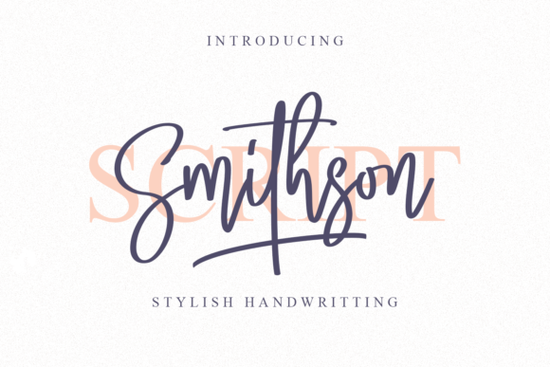
If you're looking for a handwritten font that blends elegance with modern flair, the Smithson Font is worth your attention. Designed with subtle calligraphic details and a fresh, contemporary rhythm, it’s especially well-suited for invitations, branding, packaging, and personal craft projects. What makes Smithson stand out isn’t just its visual charm it’s also PUA encoded, meaning all those decorative swashes and alternate glyphs are easy to access without digging through complex software menus.
Why choose a handwritten script like Smithson?
Handwritten fonts add warmth and personality to any design. Unlike rigid sans-serifs or formal serifs, scripts like Smithson mimic natural pen strokes, making them ideal for projects that need a human touch think wedding stationery, boutique product labels, or custom apparel. Smithson strikes a balance: it’s refined enough for luxury branding but relaxed enough for everyday creative use.
For small business owners and print-on-demand sellers, this kind of versatility matters. You can use it for a delicate quote on a coffee mug or as the focal point of a premium skincare label and it holds up beautifully in both contexts. Plus, because it includes extended glyphs and swashes (thanks to PUA encoding), you don’t need advanced typography skills to make your text look professionally styled.
How does Smithson compare to other script fonts?
Not all script fonts offer the same level of detail or usability. Take Monday Font, for example it leans more casual and bouncy, great for playful designs but less suited for formal occasions. On the other hand, Soulmate Font has romantic flourishes that work beautifully for weddings but might feel too ornate for minimalist brands.
Stylish Font offers bold, dramatic strokes perfect for headlines, while Pink Vibes Duo gives you two complementary styles in one package ideal if you want layered or contrasting text effects. Smithson sits comfortably in the middle: elegant without being fussy, legible without being plain.
Who is Smithson best for?
This font shines in the hands of:
- Wedding designers creating save-the-dates, menus, or place cards
- Etsy sellers crafting printable wall art or digital planners
- Small businesses developing logo marks or packaging for artisanal goods
- Crafters using Cricut or Silhouette machines for vinyl lettering
- Content creators designing social media quotes or YouTube thumbnails with a personal vibe
Because Smithson includes OpenType features accessible via PUA encoding, even users working in basic design tools like Canva (with font upload enabled) or Affinity Designer can easily swap in swash endings or stylistic alternates to elevate their layouts.
Tips for using Smithson effectively
To get the most out of this font, keep a few things in mind:
- Avoid overuse. Like any script font, Smithson works best when used sparingly headlines, short phrases, or accent text rather than body copy.
- Pair it wisely. Combine it with a clean, neutral sans-serif (like Montserrat or Lato) to create contrast and improve readability.
- Test at different sizes. Some delicate swashes may blur at very small point sizes, so preview your design at actual output scale.
- Use ligatures and alternates intentionally. Not every word needs every flourish sometimes simplicity reads as more sophisticated.